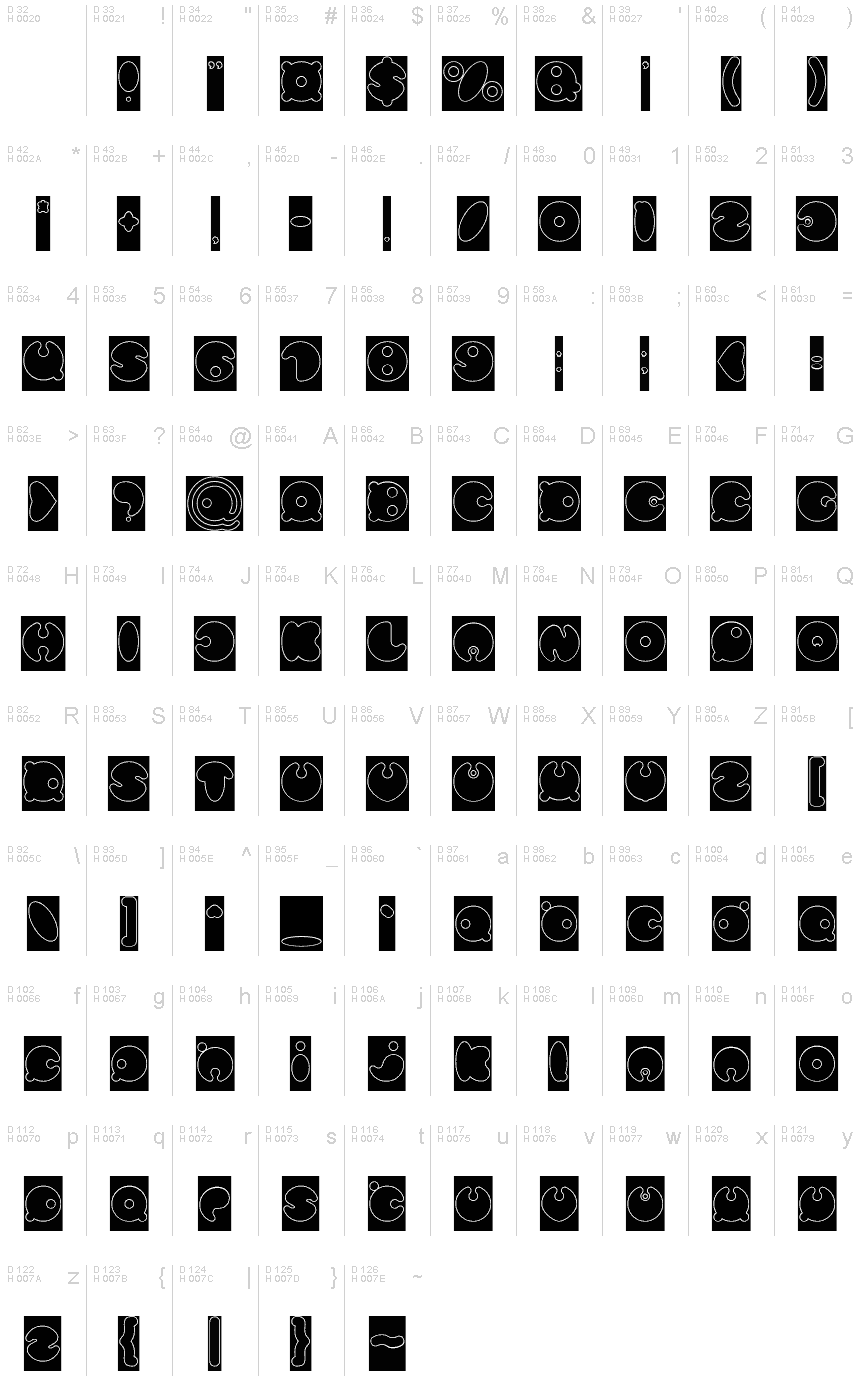
MASTER PANDA-Hollow-Inverse
Master Panda Hollow Inverse is a delightfully unconventional font that commands attention. Designed by Weknow, this display typeface flaunts a bold, expanded form with a captivating hollow interior. The groovy, playful aesthetic lends itself seamlessly to eye-catching headlines, vibrant branding, and impactful typographic compositions.
The font's unique inverse structure and striking visual presence make it an ideal choice for design projects that seek to make a bold statement. Its versatility allows it to shine in a wide range of applications, from dynamic posters and packaging to modern digital interfaces and editorial layouts.